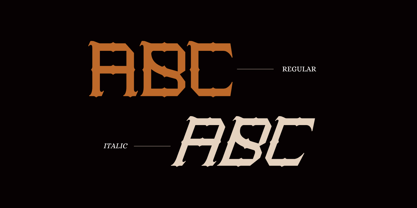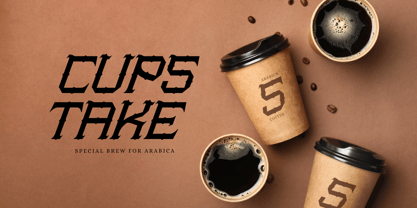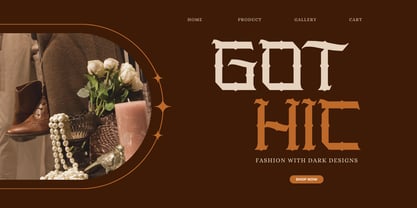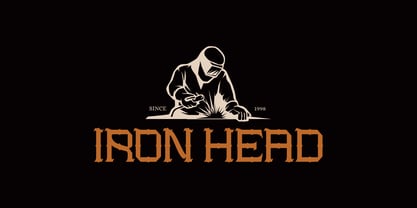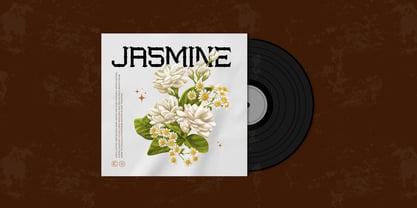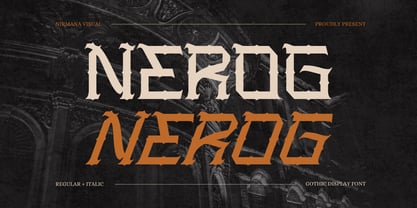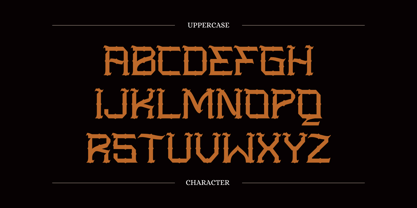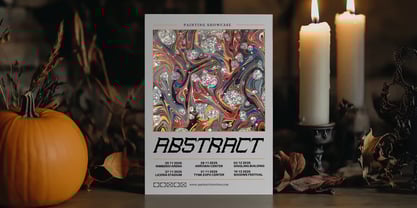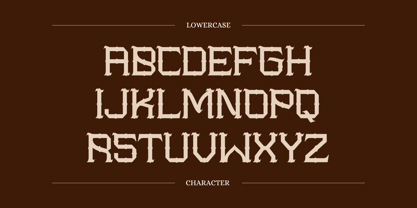
Nerog Gothic
La familia tipográfica Nerog Gothic fue diseñada por Sigit Dwipa y publicada por Nirmana Visual. Nerog Gothic contiene 2 estilos y opciones de paquete familiar. Más información sobre esta familia
Nerog Gothic is a bold and sophisticated gothic-style font designed for impactful branding, logos, fashion advertisements, and more. Available in two styles Regular and Italic. It combines sharp, modern edges with classic gothic elements, creating a striking and elegant look. Perfect for high-end branding, magazine titles, and statement designs, Nerog Gothic delivers a powerful, timeless presence. Its strong letterforms make it an ideal choice for those seeking a bold, stylish aesthetic.